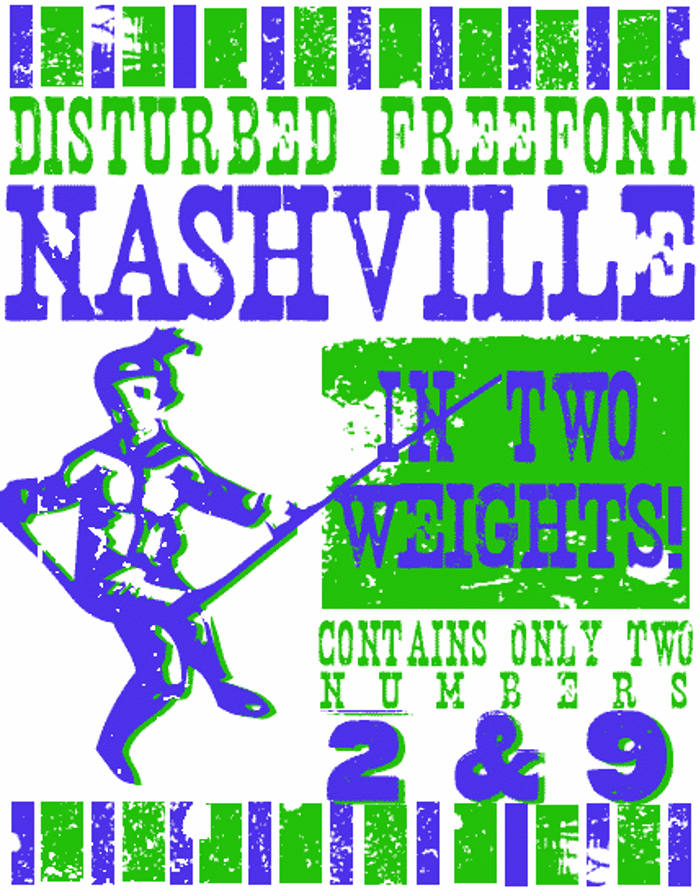
Nashville Font
i'm a big fan of show print. my bedroom is plastered from wall to wall with it, mostly from hatch show print in nashville. i've got hole, squirrel nut zippers, tori amos, bush, fiona apple, blues traveler, widespread panic, the smashing pumpkins, and tons more. anyway, this font is inspired by the posters of hatch show print. if you're ever in nashville, it's a really cool place to check out.